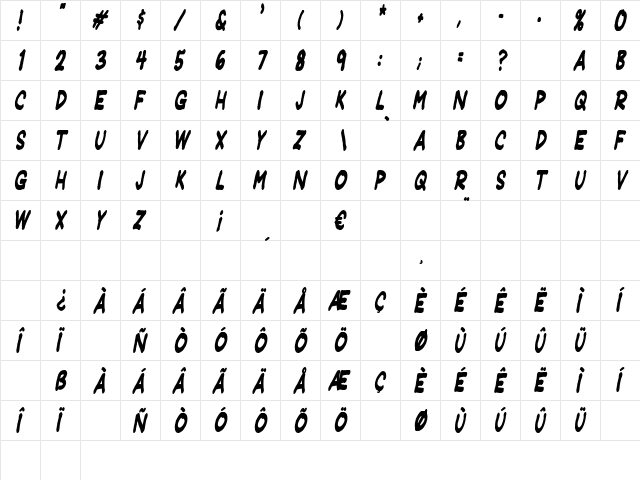
JeffreyPrint JL Condensed Italic Font Preview
| Foundry | Jeff's Fonts & Dingbats |
| Designer | Jeffrey N. Levine |
Design Context for JeffreyPrint JL Condensed Typeface
JeffreyPrint JL Condensed takes a measured approach to typography — its balanced proportions and neutral character make it a reliable workhorse for both digital and print work. Its italic angle brings a sense of urgency and motion to the letterforms. The condensed width makes it efficient for tight spaces without sacrificing legibility.